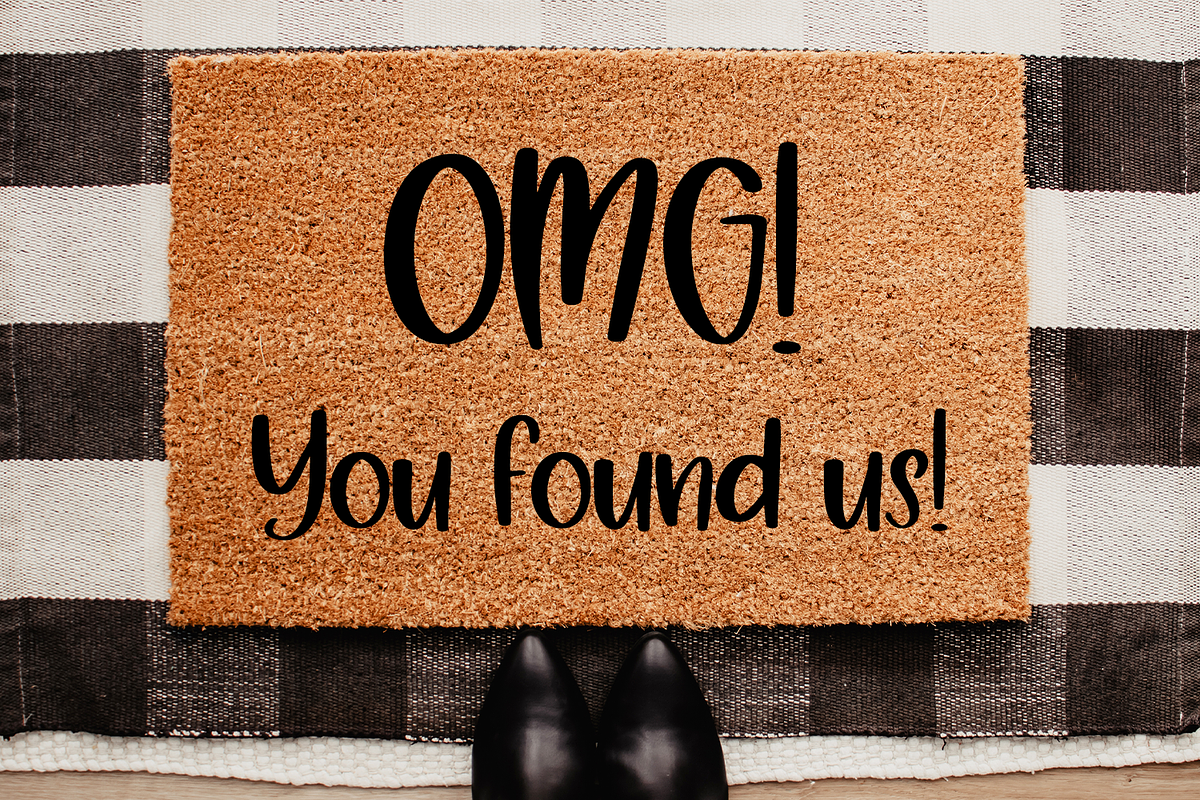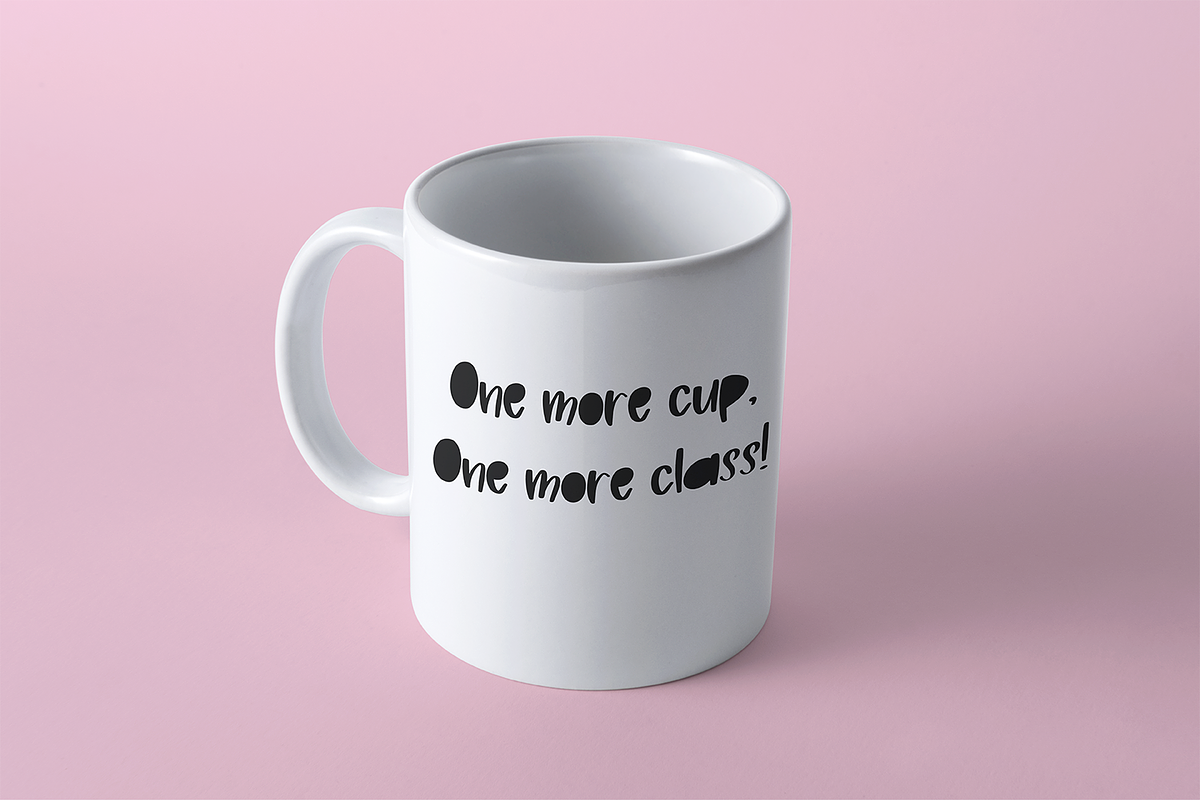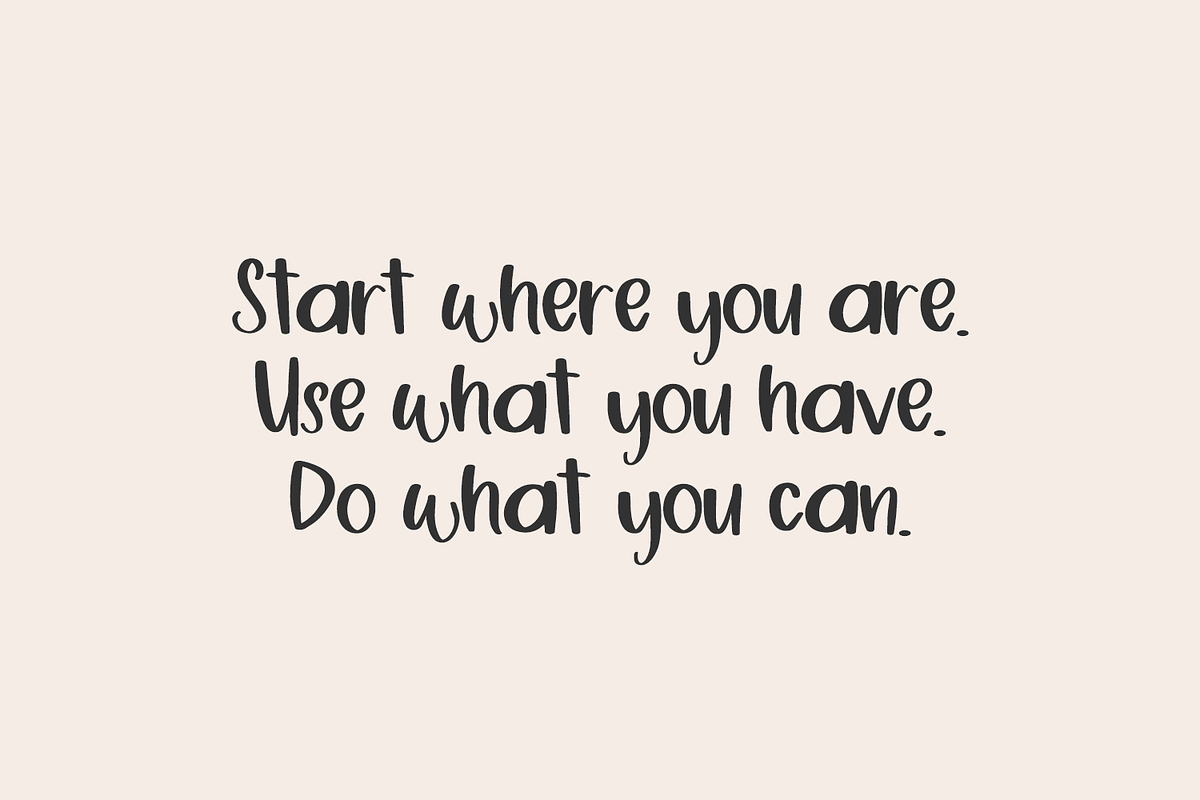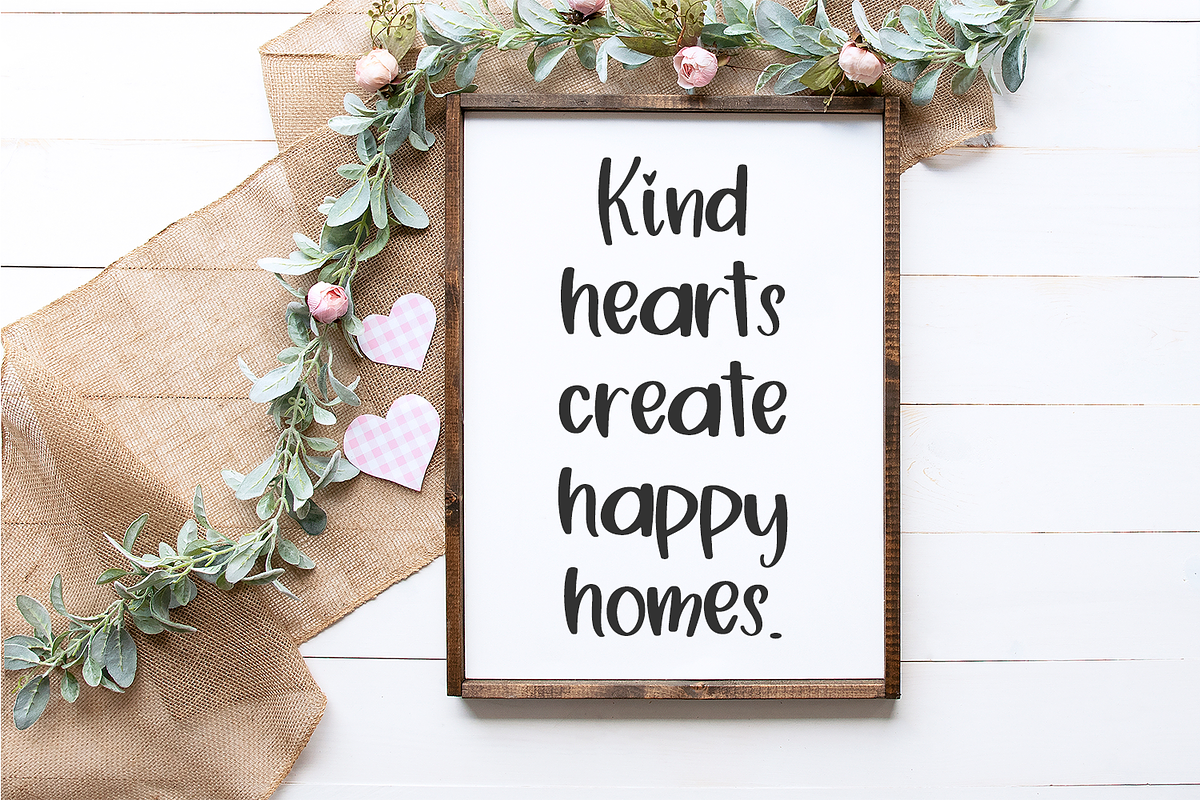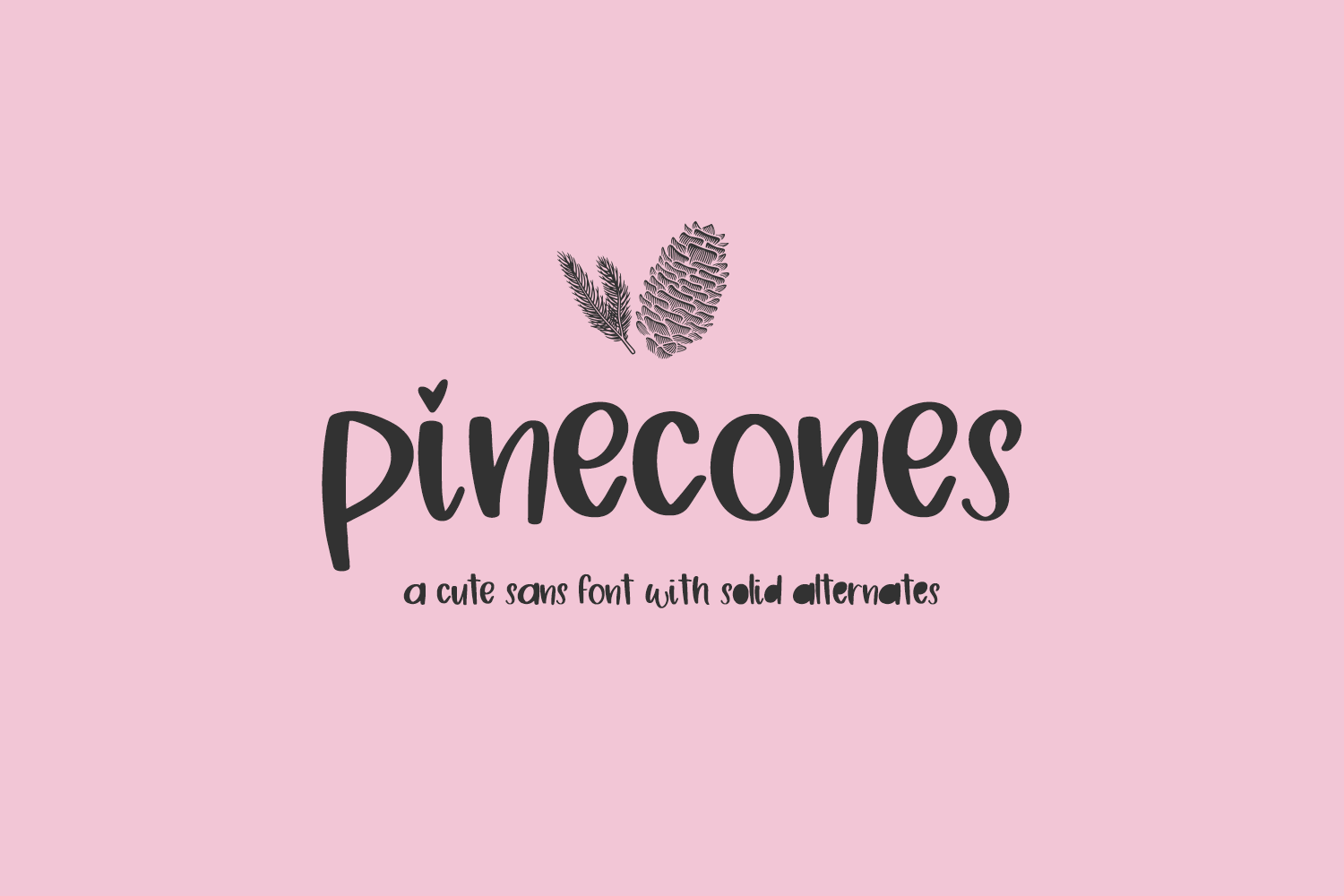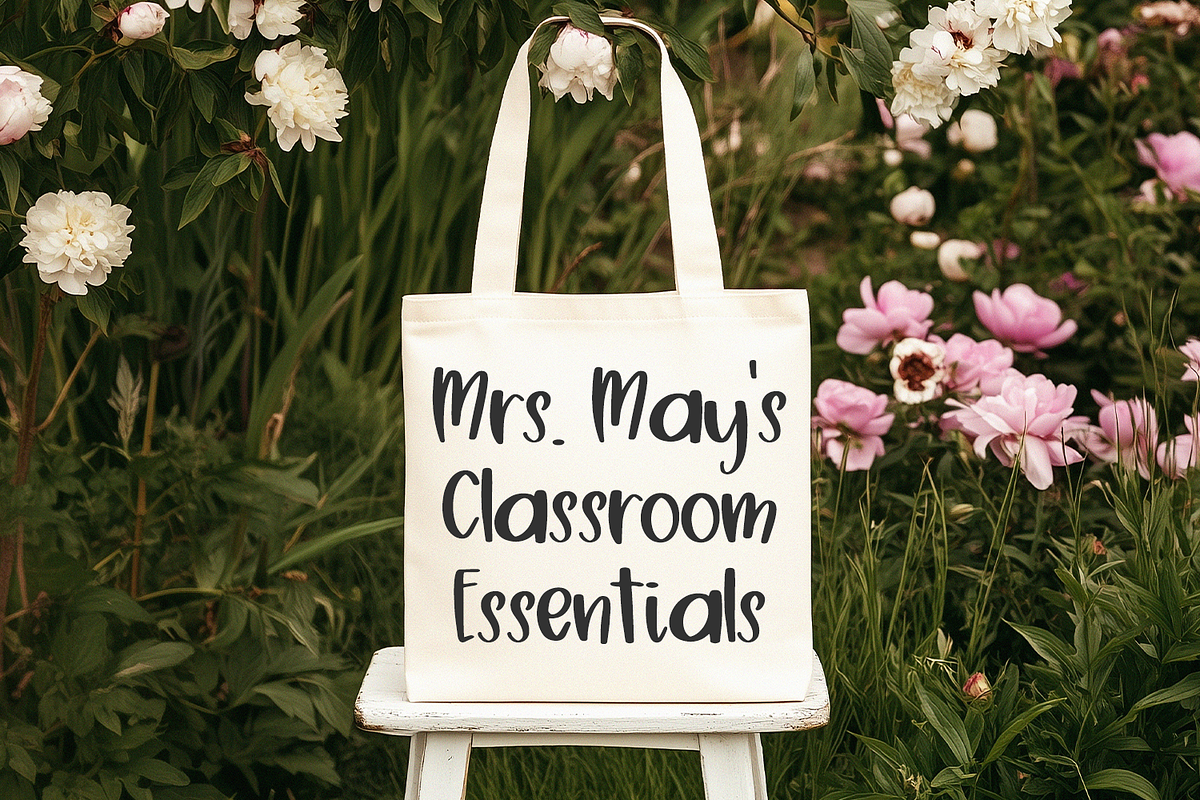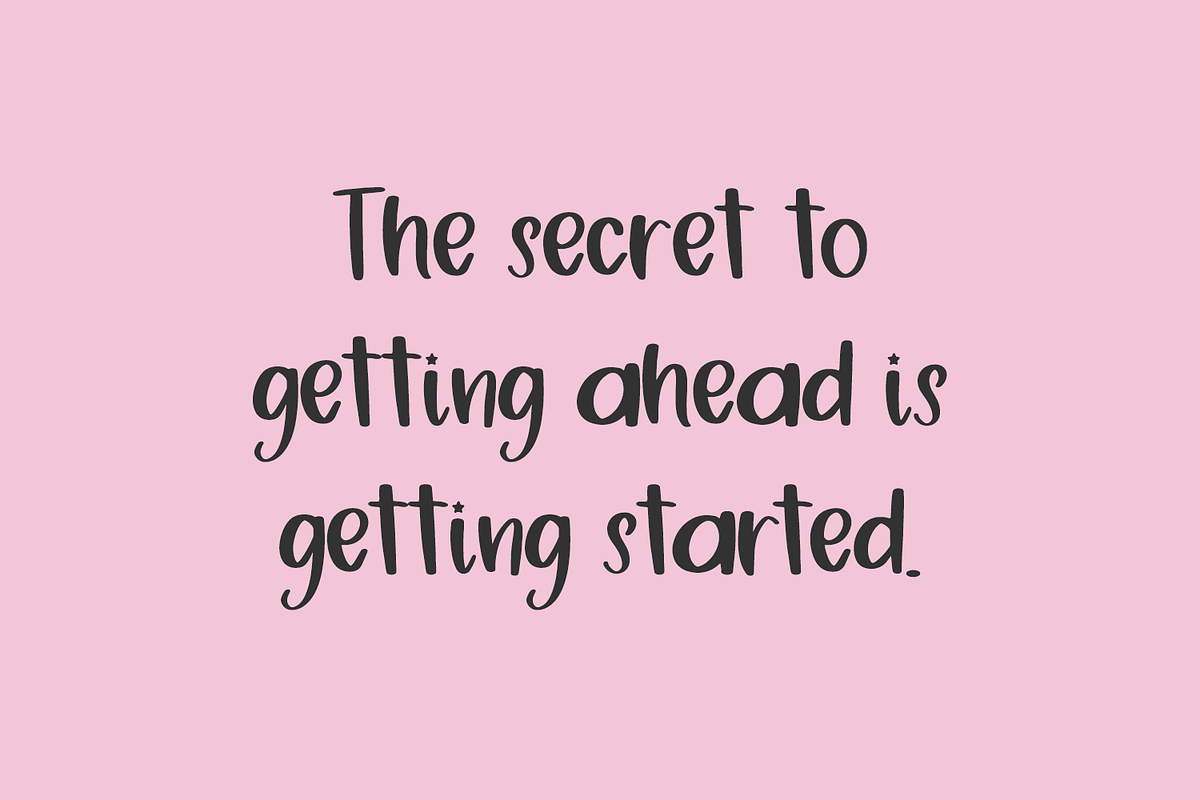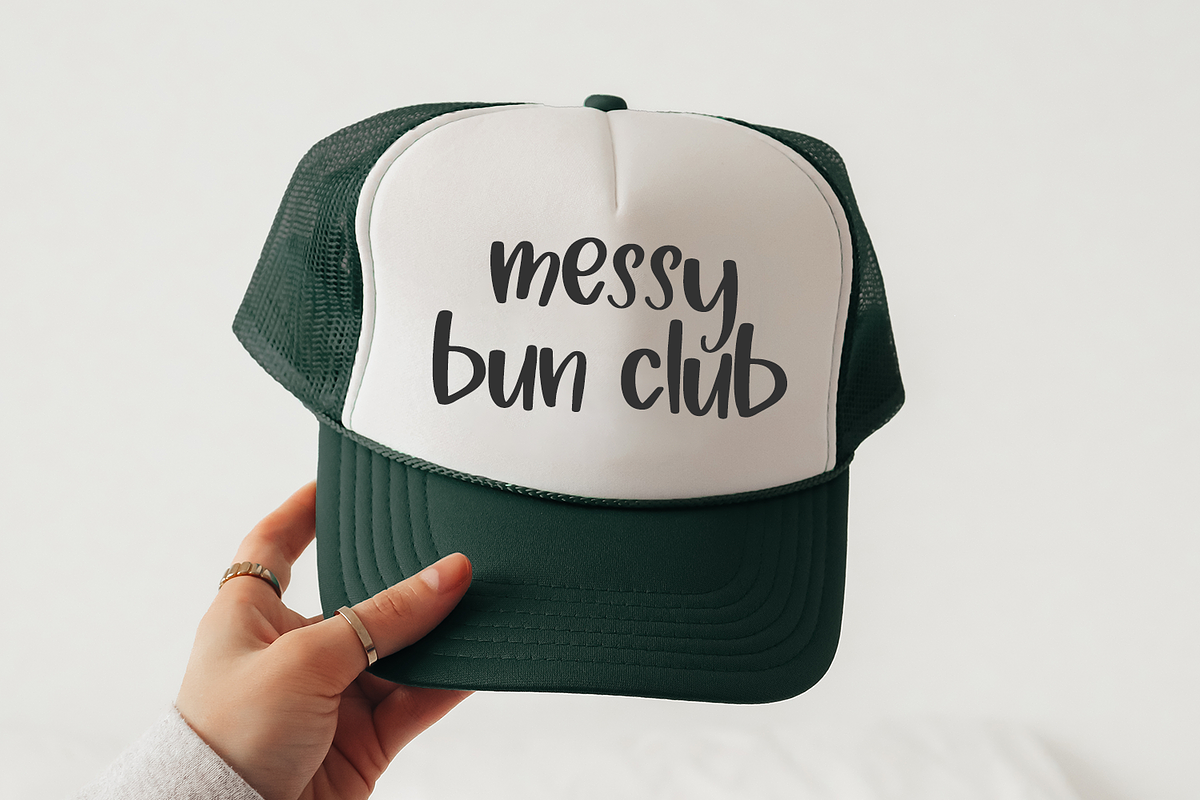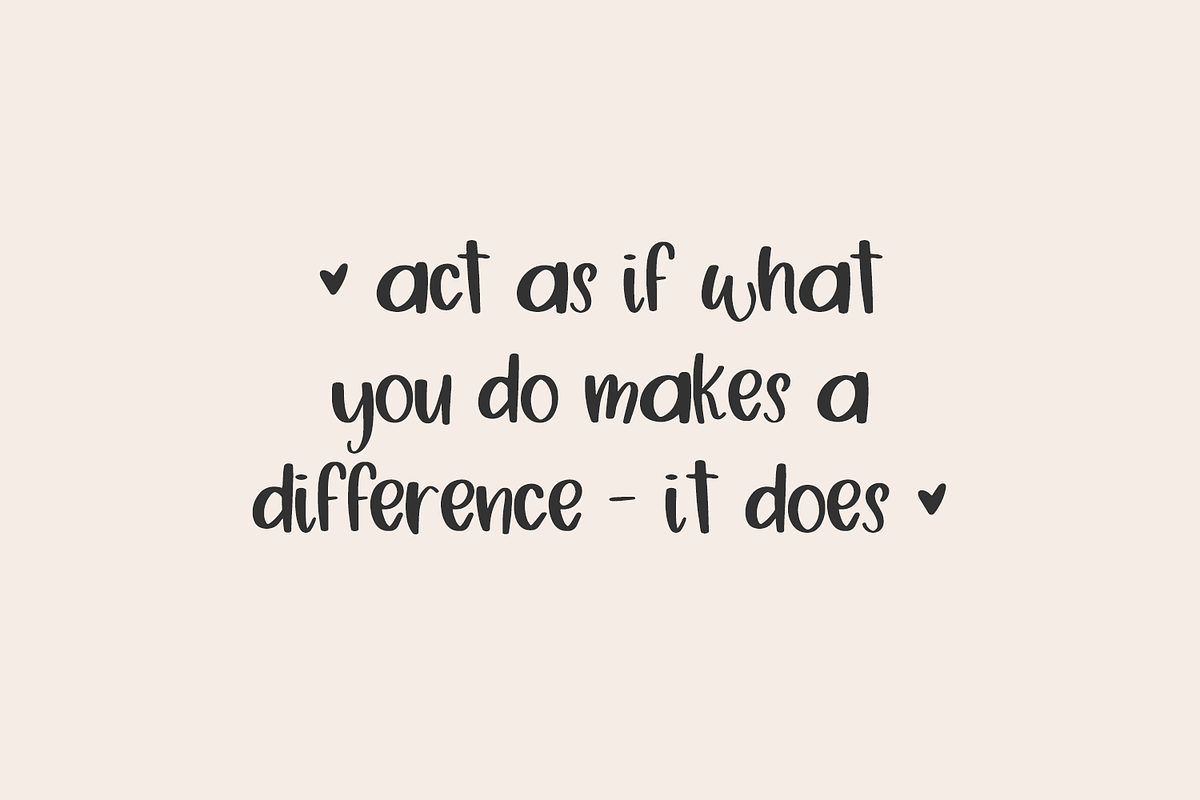
Pinecones Sans Handwriting Font
Introducing Pinecones Sans, a cute handwritten font with blacked out alternates. This font is neat & tidy. Because of this, it would make a great addition to a teacher’s font collection, children’s books, or classroom decor. It could also be used for handwriting practice for young learners, or people who want to improve their printed handwriting. Pinecones Sans is also perfect for logos & branding, greeting cards, painted banners, digital planners, note-taking apps, Canva, Cricut projects, Silhouette projects, designing SVG files, laser cutting projects, & more.
Pinecones Sans includes:
- full upper + lowercase characters
- numbers + punctuation
- 19 alternate characters - A, B, D, P, Q, R, O, a, b, d, e, g, i x2, j x2, o, p, q
- 2 cute doodles, star & heart - type ## for star, type @@ for heart (must turn ligature feature on in design software)